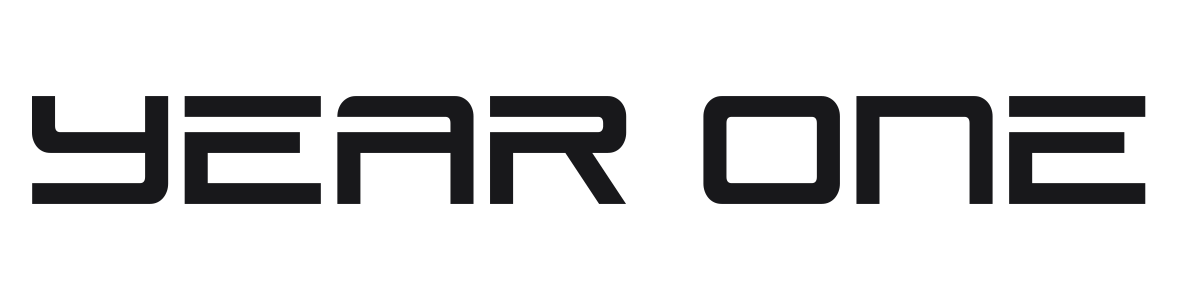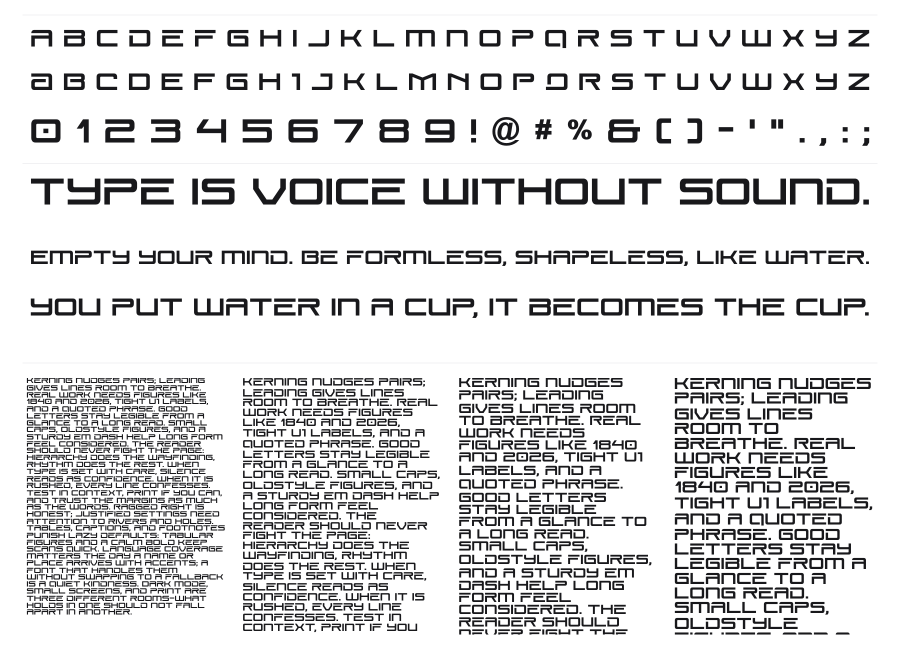
Year One
Year One is a bold square sans-serif from Iconian Fonts built entirely on flat terminals and uniform right-angle geometry. Every character shares the same blocky construction, rounded only at the outer corners, giving it a consistent mechanical rhythm across words. It carries strong sci-fi and military associations, fitting naturally in game titles, film credits, and tech branding.